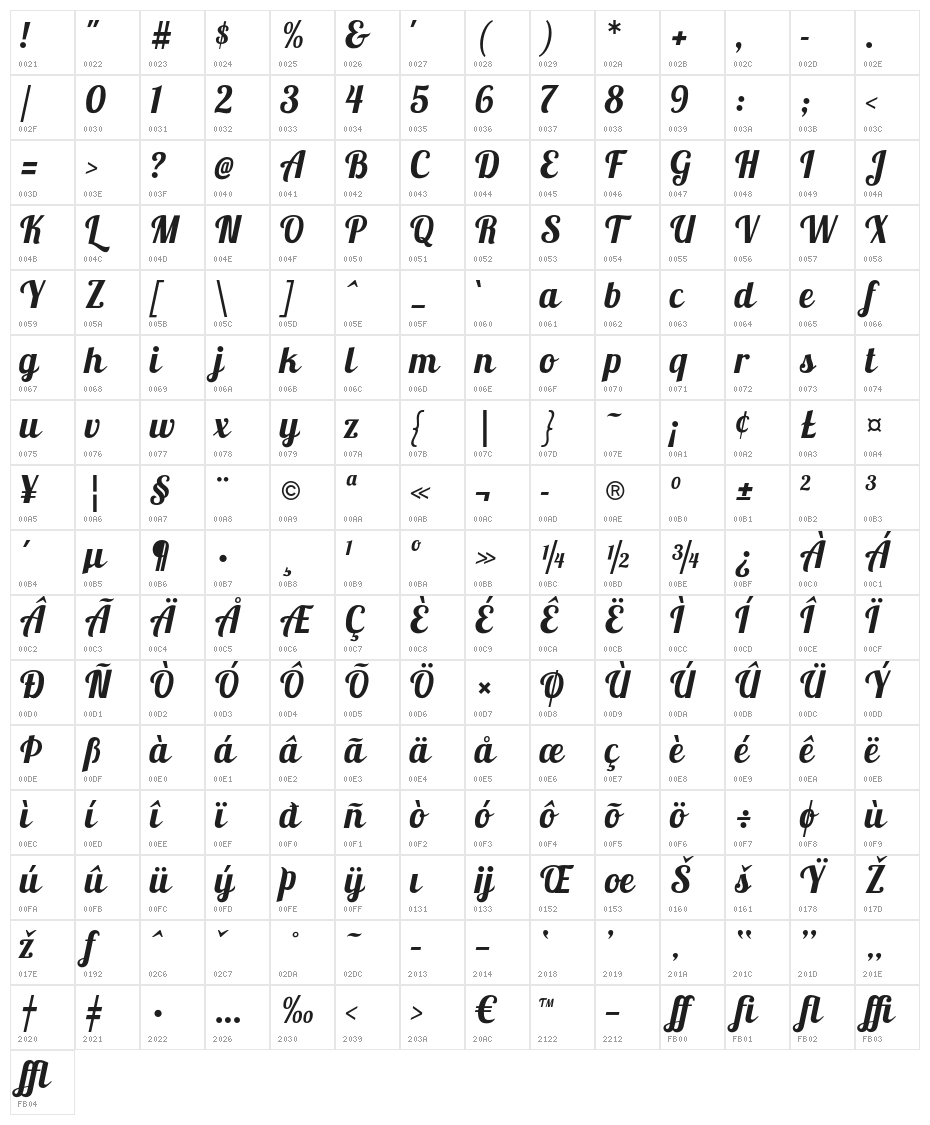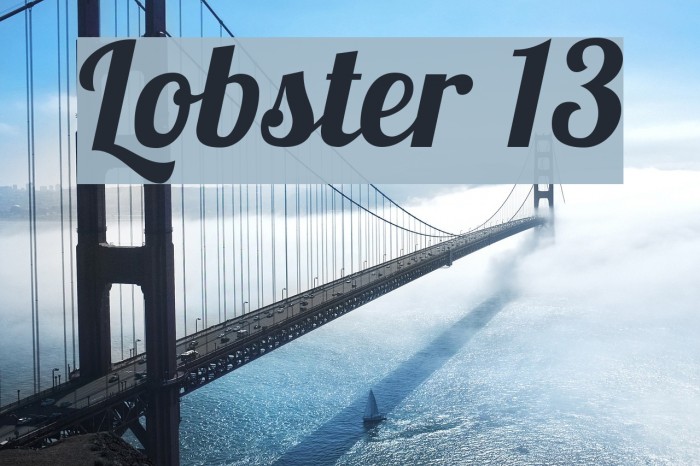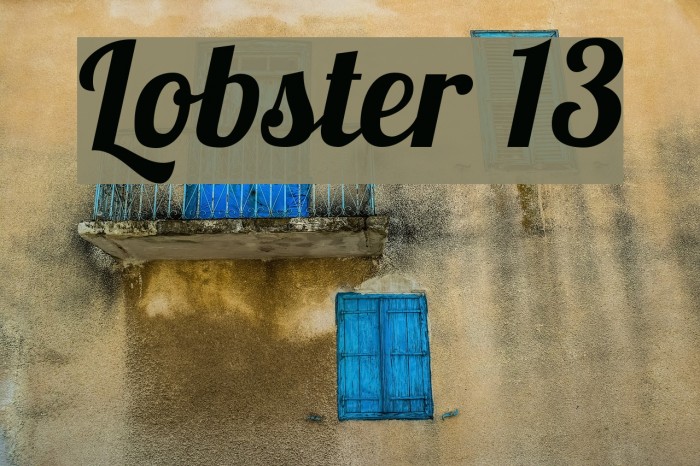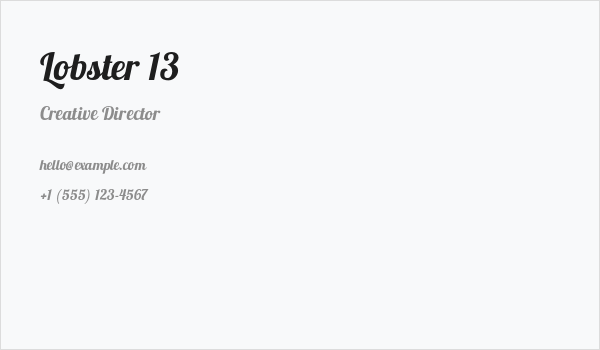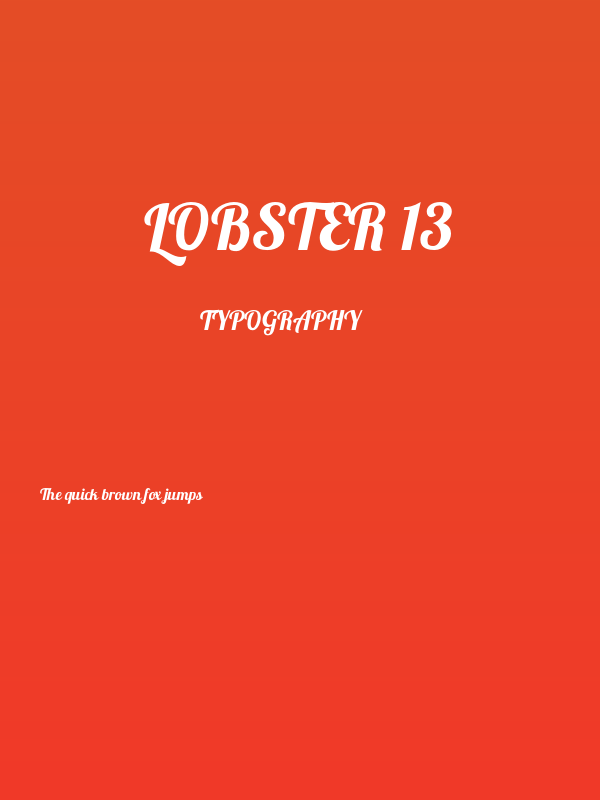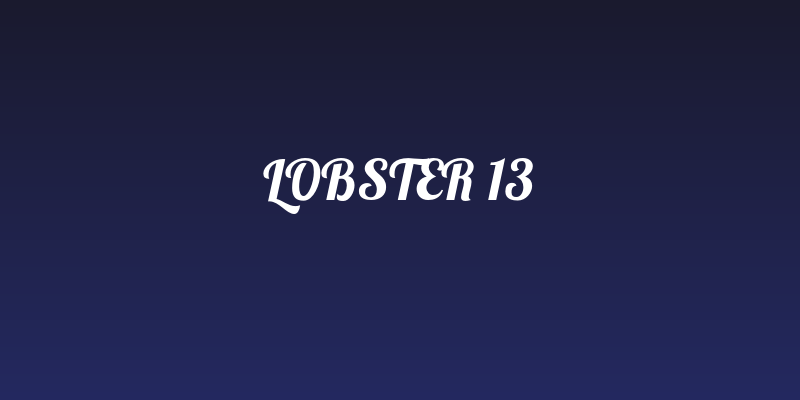
Lobster 13 Font
Lobster 13 Description
This font features a bold and flowing script style, characterized by its smooth, connected letters and elegant curves. The uppercase letters are slightly more formal, with a distinct slant and flourishes that add a touch of sophistication. The lowercase letters maintain a consistent flow, enhancing readability while retaining a stylish appearance. Numbers and special characters are designed to complement the overall aesthetic, with a uniform thickness and graceful arcs. The font's design is both modern and timeless, making it versatile for various applications.